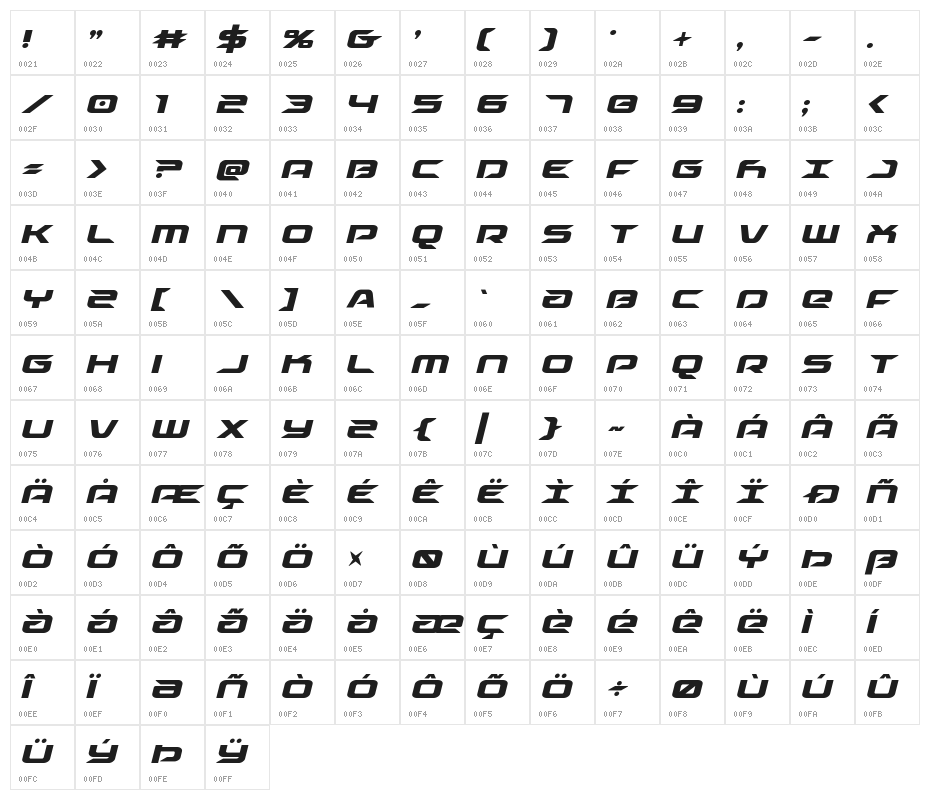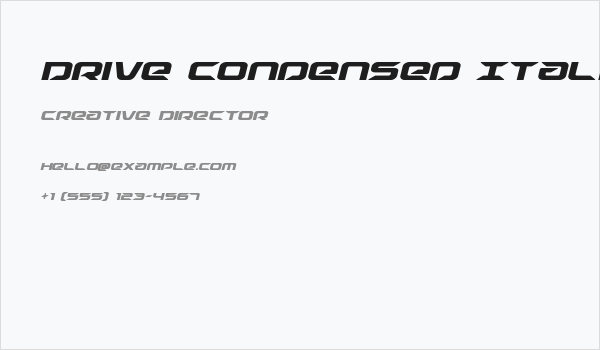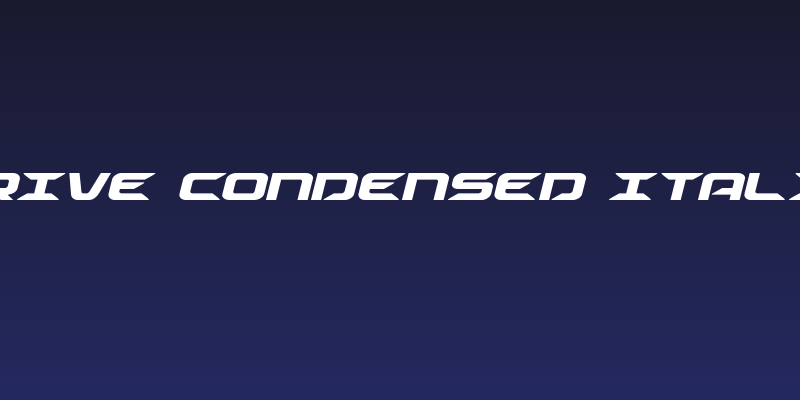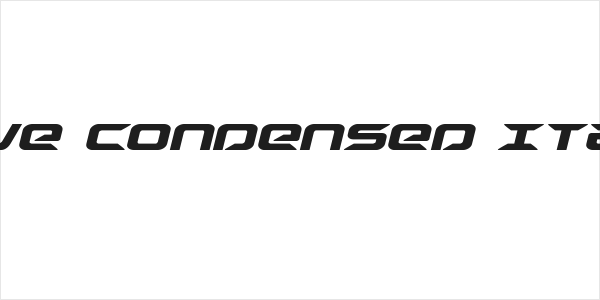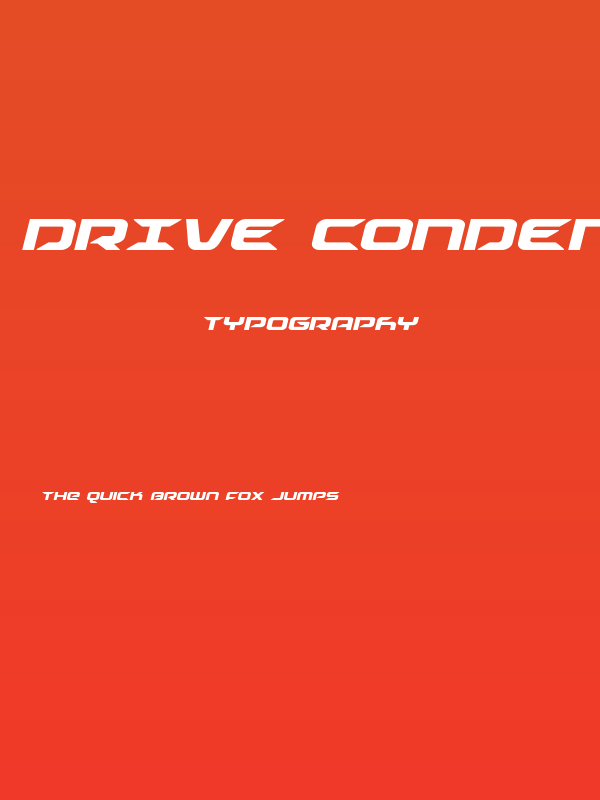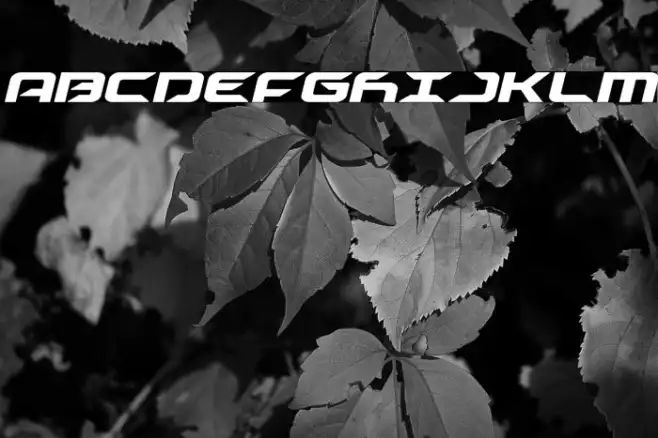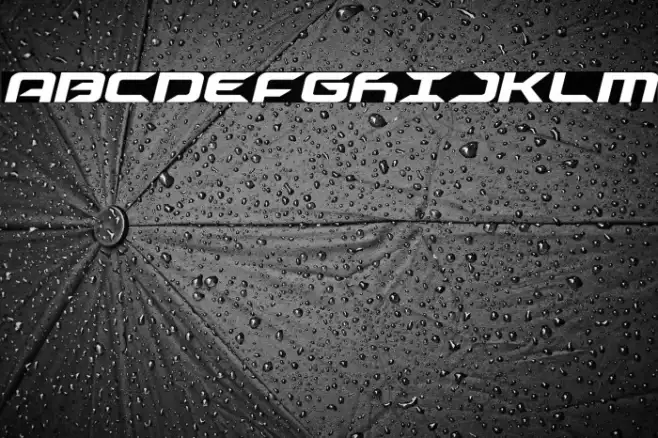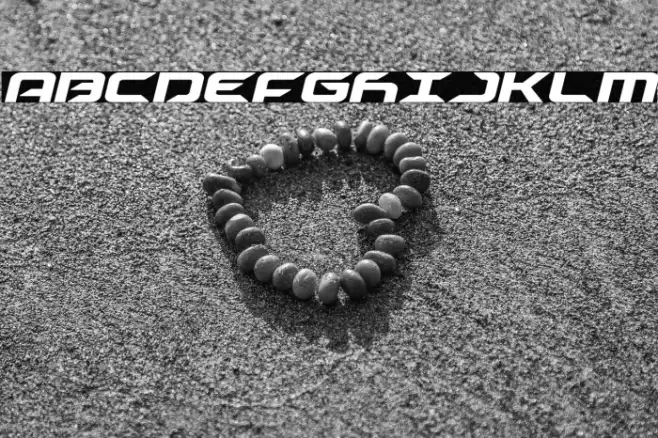
Drive Condensed Italic Font
Drive Condensed Italic Description
This font features a sleek, futuristic design with a condensed and italicized style. The characters are sharply angular, giving a sense of speed and modernity. The uppercase and lowercase letters maintain a consistent slant, enhancing the dynamic appearance. Numbers and special characters are designed with the same angular precision, ensuring uniformity across all glyphs. The overall aesthetic is bold and impactful, making it suitable for projects that require a modern and edgy look.
| Proposed Projects | Ideal for automotive branding, tech company logos, video game titles, and sports team merchandise. |